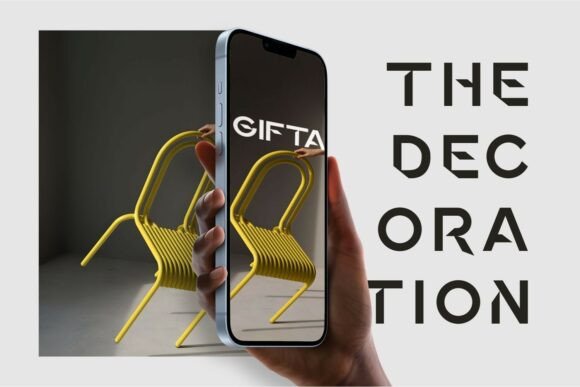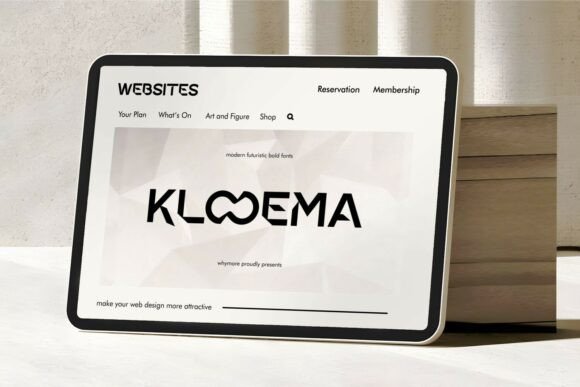
Designing for the Future: Unveiling the Power of Kloema Font
Have you ever been working on a project, staring at a blank canvas, and suddenly, a spark of creativity hits you? You know exactly what you want to create – a bold, futuristic, and elegant design that captures the essence of innovation. This is the moment when the Kloema Font comes to life, perfectly encapsulating the essence of modern branding.
| 👤 Author | Whymore |
As a designer, you’re always on the lookout for fonts that exude strength and sophistication. This is where the Kloema Font shines, offering a unique blend of geometric shapes and an infinite “OO” letterform that sets it apart from the rest. Ideal for luxury business identity, tech branding, and corporate stationery, this font is a game-changer for designers looking to elevate their visual projects.
- Font Family: Kloema is a sans-serif font family designed for digital use.
- Character Set: Supports a wide range of languages, including Latin, Cyrillic, Greek, and many others.
- Unique Characteristics: Kloema features a modern design with clean lines, geometric shapes, and a neutral tone, making it suitable for corporate, editorial, and digital use.
Kloema Font Review
I recently had the chance to work with the Kloema font, and overall, I have mixed feelings about it. Let’s dive into what works well and what doesn’t.
- The font has a unique, modern aesthetic that can add a touch of elegance to any design project.
- The Kloema font is highly legible, making it suitable for both body text and headings.
- The font comes in a range of weights and styles, allowing for great flexibility in design applications.
- The font is well-suited for digital use, including web design, mobile apps, and other digital interfaces.
- The font may not be the best choice for print designs, as it can appear pixelated at larger font sizes.
- The font lacks a bold weight, which may limit its use in certain design applications.
- The font’s uniqueness can be a double-edged sword – while it stands out, it may not be to everyone’s taste.
While the Kloema font has its strengths, its limitations hold it back from being a top choice for all design projects. However, it’s still a solid option for modern, digital designs that require a touch of elegance and sophistication.
Tips for Getting the Most Out of Kloema Font
For optimal results, use Kloema Font in bold and italic styles to add emphasis and contrast to your text.
Experiment with different font sizes and colors to create visually appealing combinations.
Kloema Font is ideal for:
- Creating eye-catching headlines and titles.
- Designing modern and minimalist layouts.
- Adding a touch of elegance to your branding and marketing materials.
Compared to Kloema Font, Merriweather is more formal and traditional, while Kloema Font is more modern and elegant. Merriweather is a better choice when you need a font that conveys a sense of sophistication and tradition.
Compared to Kloema Font, Lato is more modern and playful, while Kloema Font is more elegant and refined. Lato is a better choice when you need a font that is fun and energetic.
Compared to Kloema Font, Open Sans is more minimalist and straightforward, while Kloema Font is more elegant and refined. Open Sans is a better choice when you need a font that is easy to read and understand.